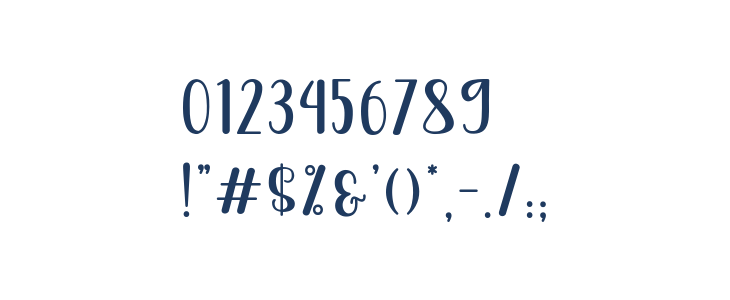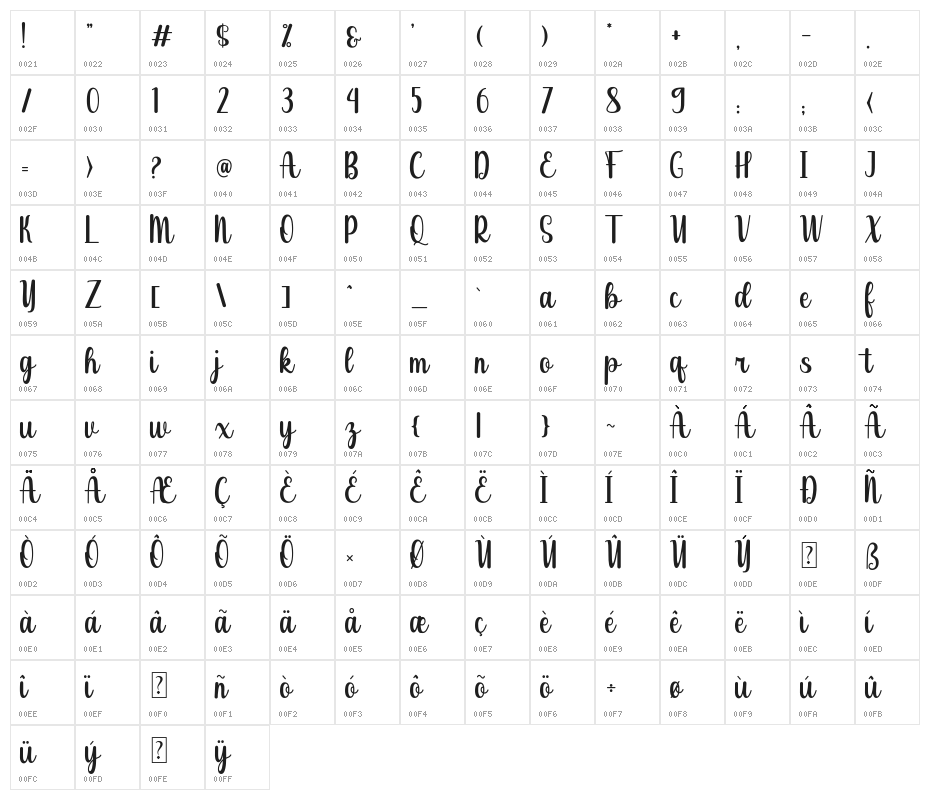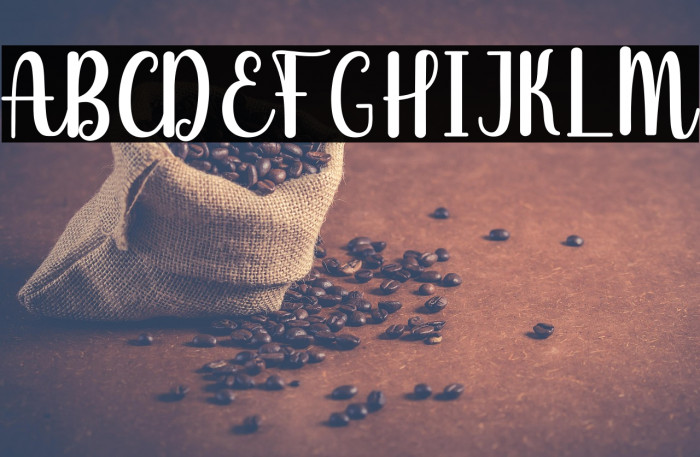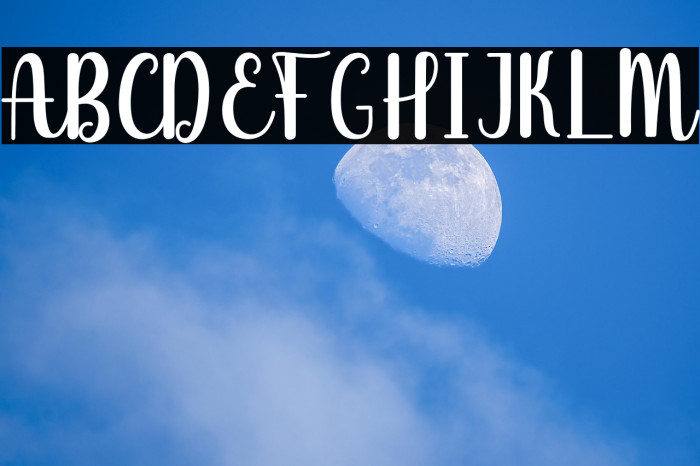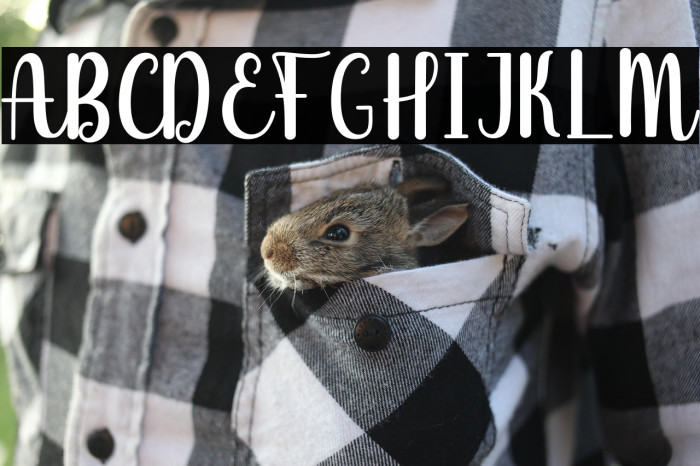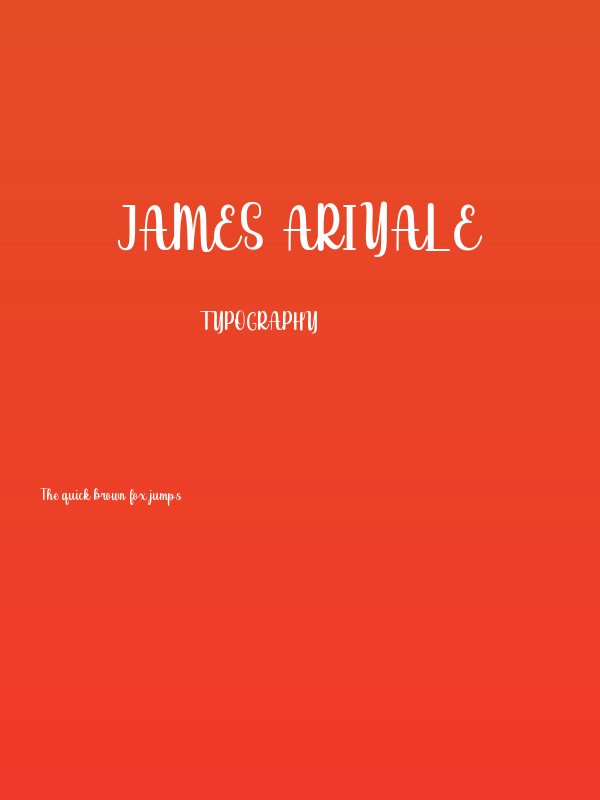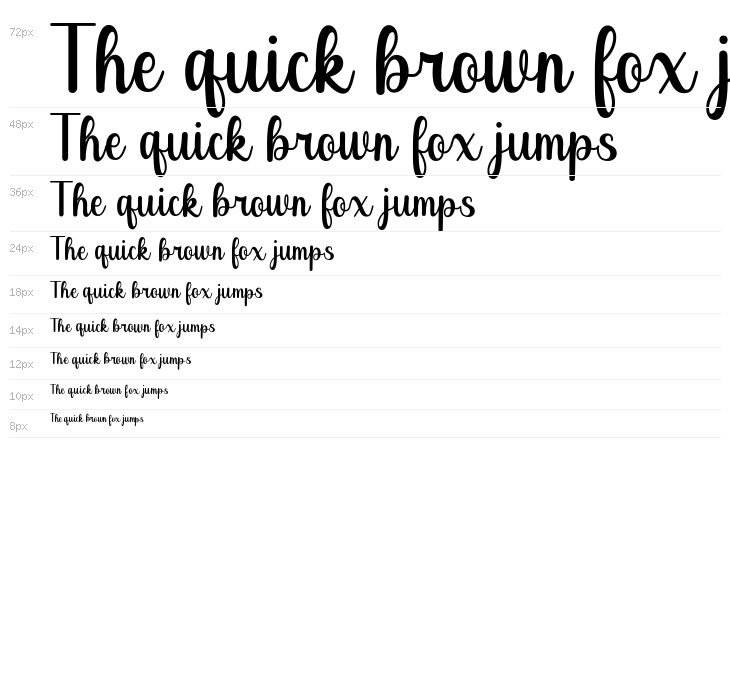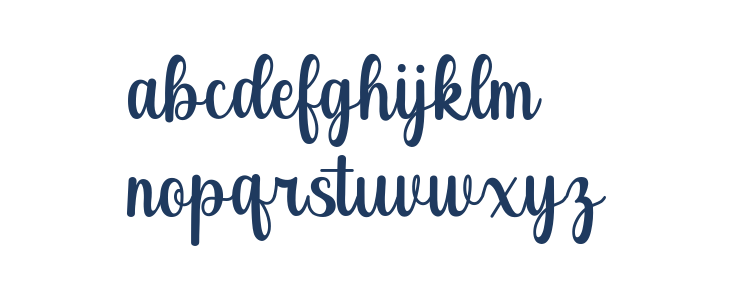
James Ariyale Font
James Ariyale Description
This font features a playful and elegant script style with a handwritten touch. The uppercase letters are bold and slightly elongated, giving a sense of sophistication and flair. The lowercase letters maintain a consistent flow with smooth curves and loops, adding to the font's charm. The numerals are clear and easy to read, matching the overall style with a slight slant. Special characters are creatively designed, enhancing the font's decorative appeal. This font is perfect for projects that require a personal and artistic touch, such as invitations, greeting cards, and branding materials.